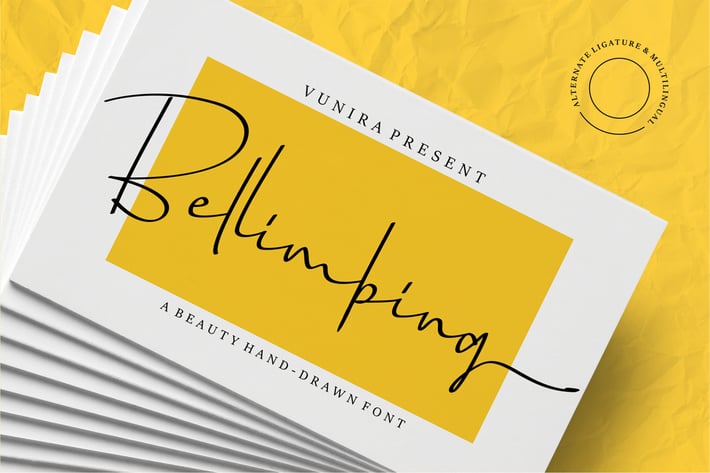
Bellimbing | A Beauty Hand-Drawn Font
Bellimbing | A Beauty Hand-Drawn Font with a calligraphy style, So beautiful on invitation like greeting cards, branding materials, business cards, quotes, posters, and more!